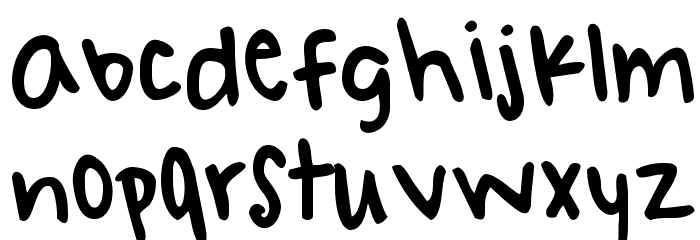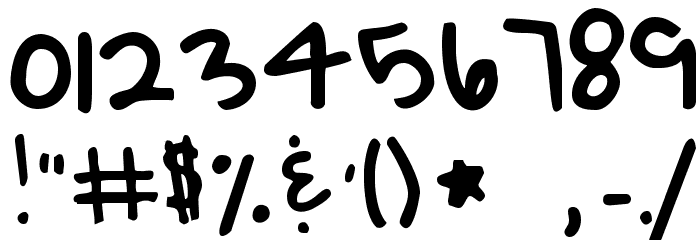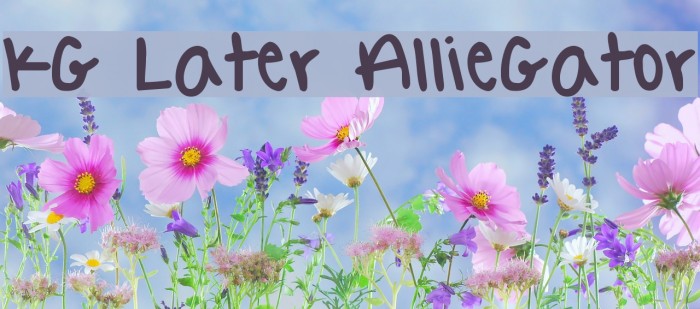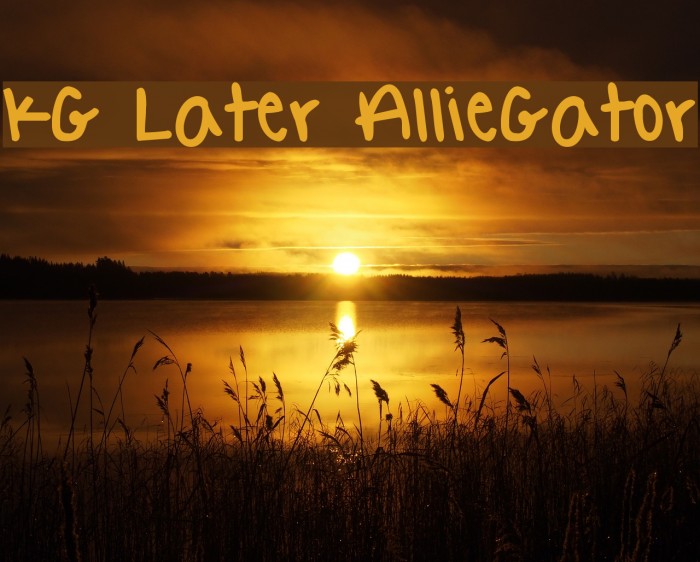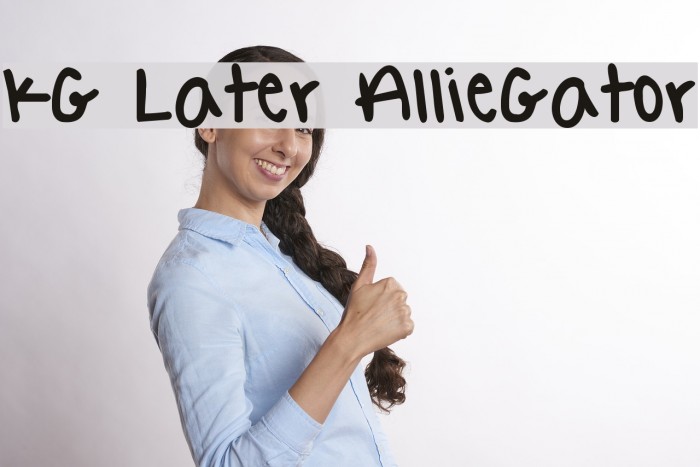
KG Later AllieGator Font
This playful and whimsical font features a handwritten style that exudes a sense of fun and creativity. The characters are bold and rounded, with a slightly irregular baseline that adds to its informal charm. The uppercase and lowercase letters maintain a consistent style, with smooth curves and a friendly appearance. Numbers and special characters are designed to match the overall playful aesthetic, making it suitable for projects that require a casual and approachable look. The font's unique personality makes it ideal for children's materials, playful branding, or any design that seeks to convey a sense of joy and spontaneity.
A playful, handwritten font with bold, rounded characters and a whimsical style.
- Proposed Projects: Ideal for children's books, playful branding, greeting cards, and informal invitations.
- Overall Style: Playful, Whimsical
- Use Case: Headlines, Logos, Informal Text